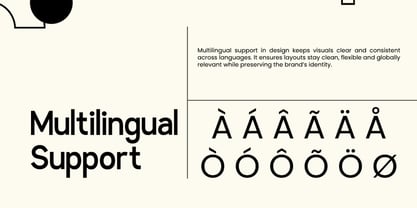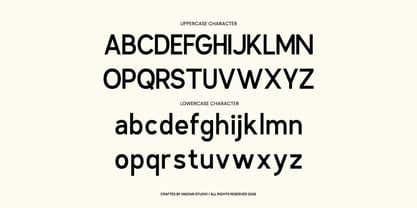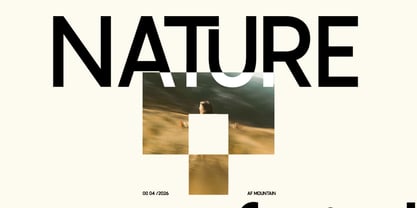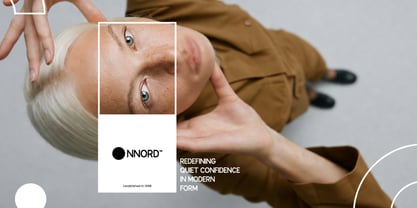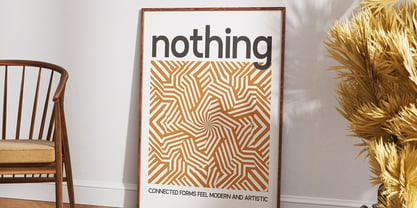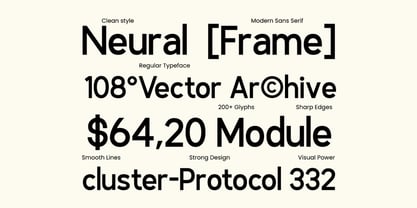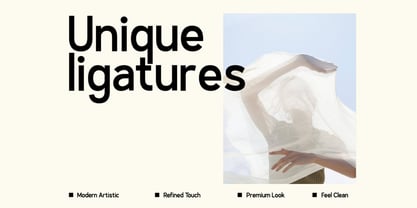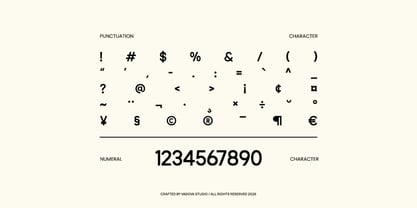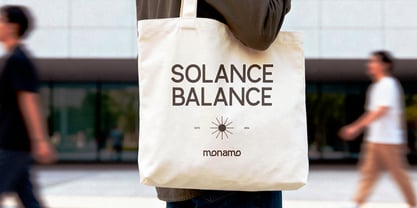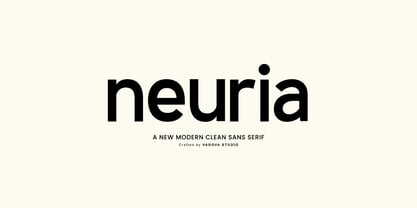
Neuria
Neuria is a modern clean sans serif typeface featuring bold geometric forms, smooth curves, and highly legible letter structures. The font includes full uppercase and lowercase characters, numerals, and essential punctuation, designed with balanced spacing and consistent stroke weight for a refined minimalist look. It supports multilingual characters and is optimized for both digital and print use. This font is highly relevant for modern branding systems, editorial layouts, digital interfaces, and marketing visuals where clarity and professionalism are essential. It works effectively for logos, headlines, posters, websites, and corporate materials, especially in projects that require a clean, minimalist, and contemporary visual direction.